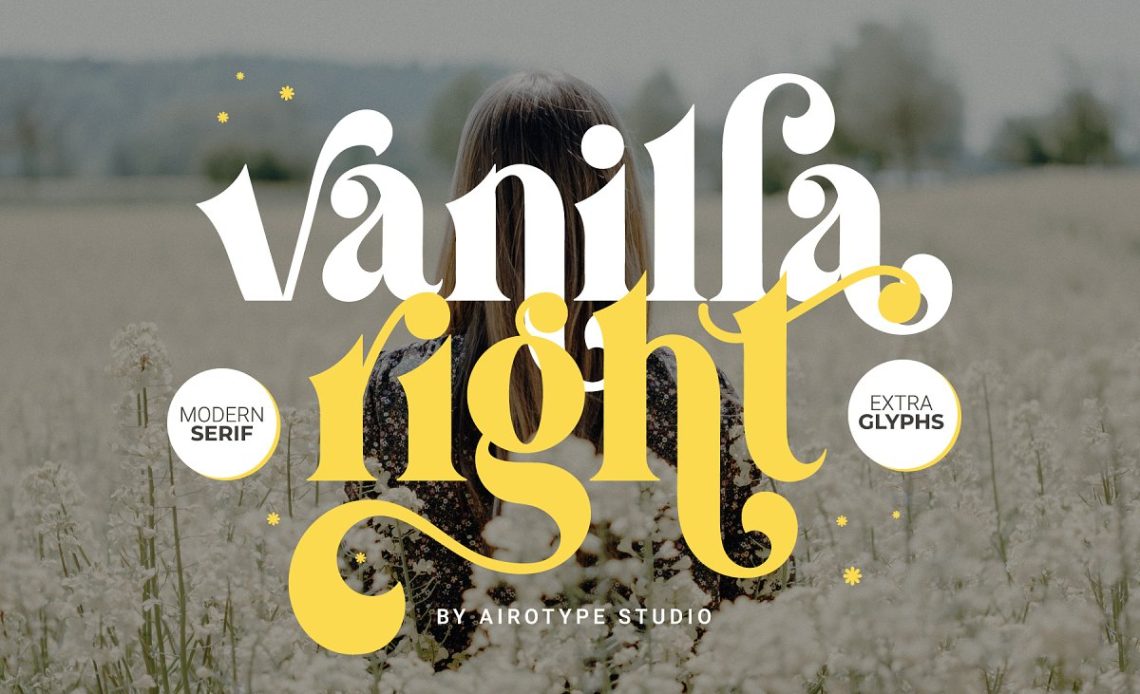
Introducing our new modern serif font, Vanilla Right - the perfect font for branding and creative projects. Created by the talented Ainur Rofiq, this font is a must-have for designers looking to make a statement.
With its fresh and beautiful look, Vanilla Right instantly adds a touch of elegance to any design. Whether you're working on a modern or retro vintage project, this font will elevate your work to the next level.
What sets Vanilla Right apart is its versatility. It comes with extra glyphs, giving crafters endless options when it comes to designing. The swirly extras add a touch of class and sophistication, making this font truly unique.
Not only does Vanilla Right excel in its aesthetics, but it also offers practicality. It includes uppercase and lowercase letters, as well as PUA-encoded extra glyphs, allowing for seamless integration into any project. The font also supports most multilingual accents, making it accessible to users worldwide.
Whether you're working on a branding project, crafting stickers, designing wedding invitations, or just looking to add a touch of elegance to your creations, Vanilla Right is the font for you.